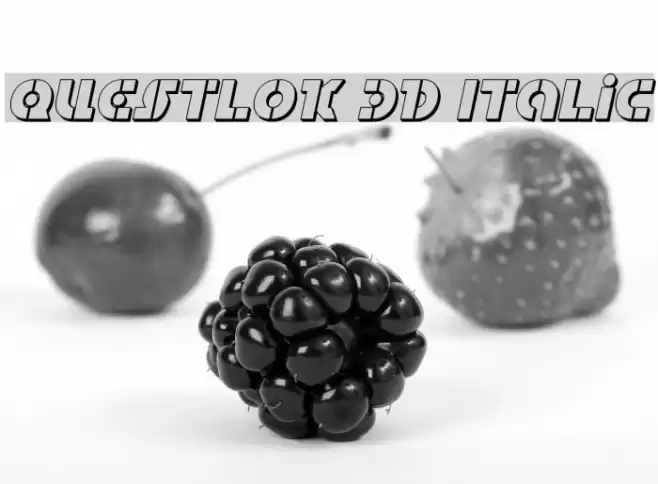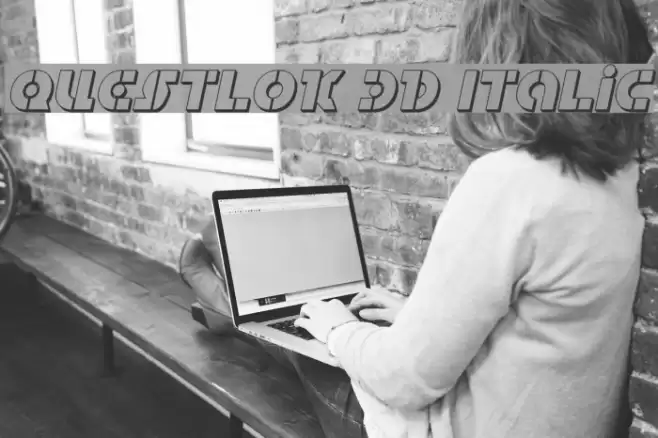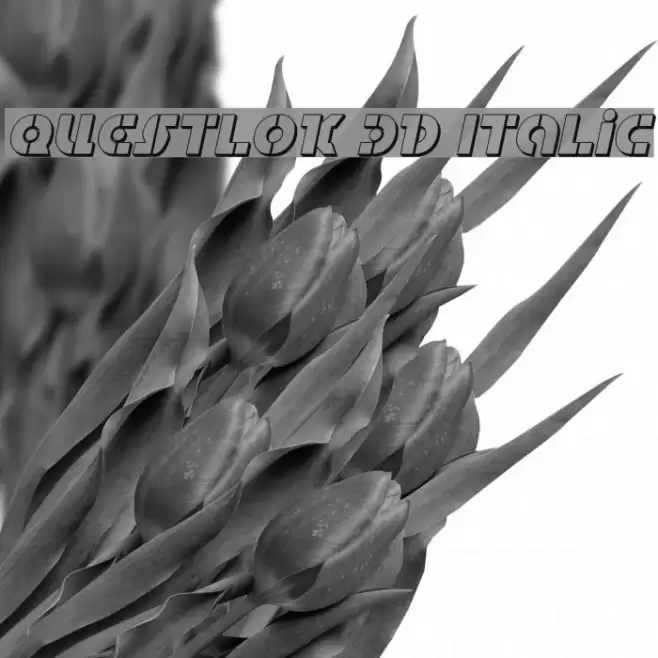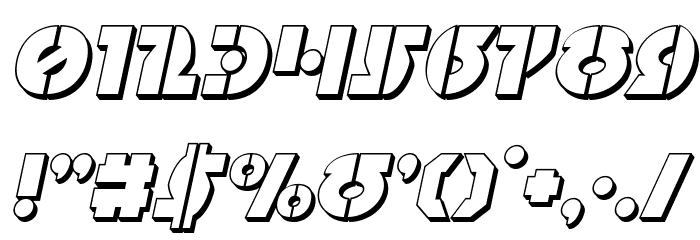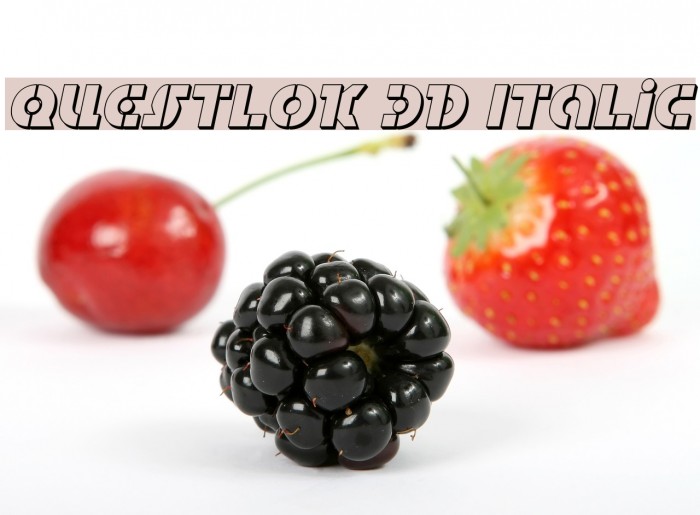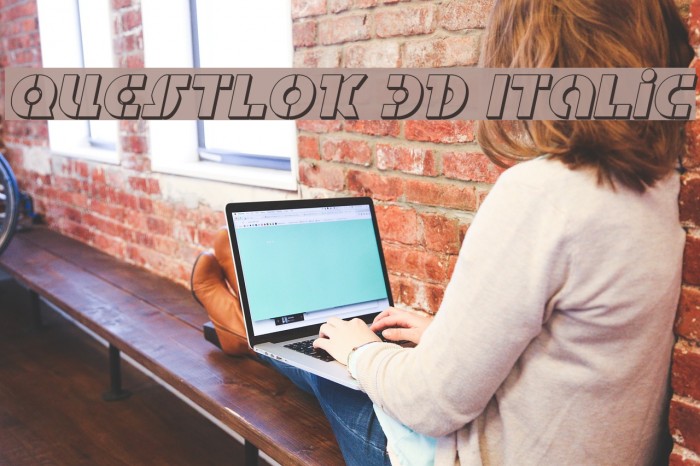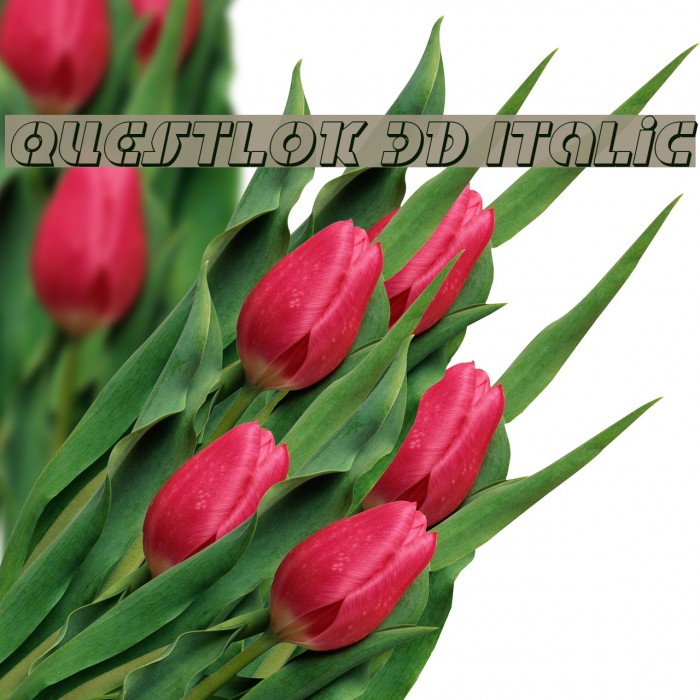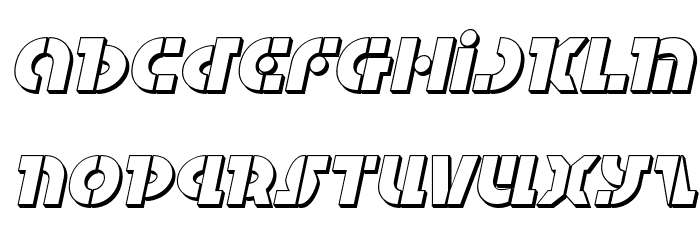
Questlok 3D Italic Font
Questlok 3D Italic Description
This font features a bold and dynamic 3D effect, giving each character a sense of depth and dimension. The italicized style adds a forward-leaning motion, enhancing its energetic and modern appeal. The characters are outlined, creating a hollow look that emphasizes the geometric shapes and angles. This font is particularly eye-catching, making it ideal for designs that require a strong visual impact. The uppercase and lowercase letters maintain a consistent style, with numbers and special characters following the same design principles. The overall aesthetic is futuristic and playful, suitable for creative projects.
A bold, 3D italic font with a modern and dynamic style from Uncategorized fonts.
- Proposed Projects: Ideal for posters, logos, video game graphics, and any project needing a futuristic or playful touch.